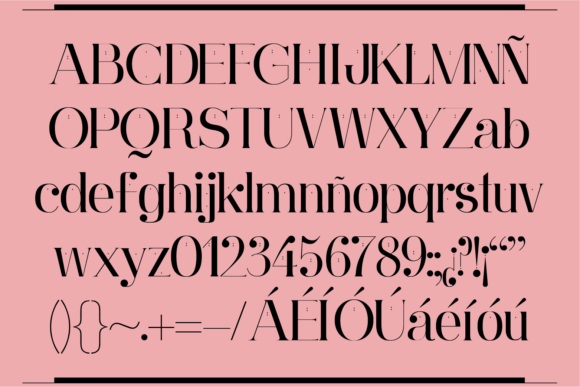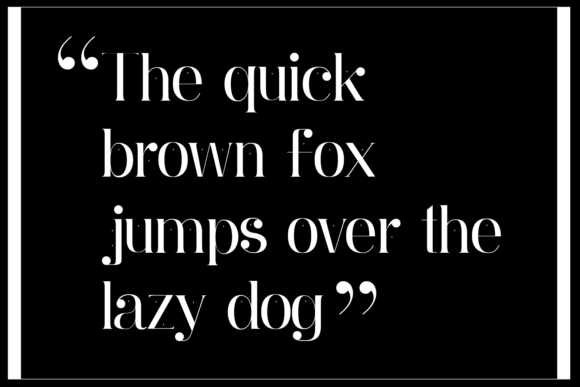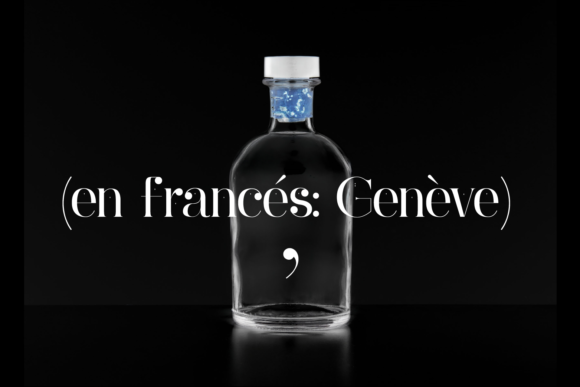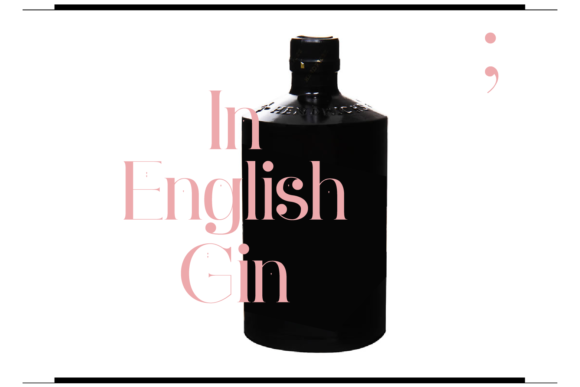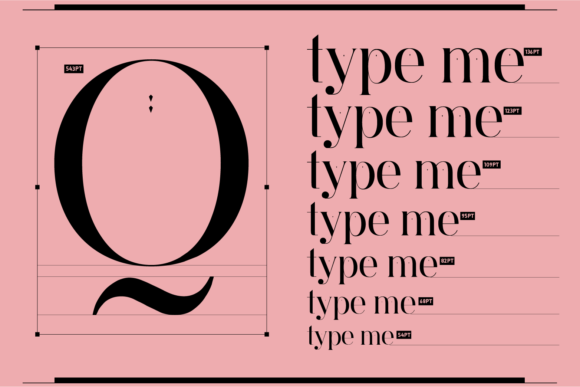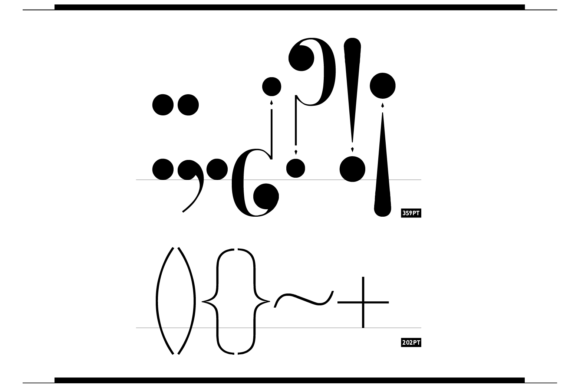
The Designer’s Delight: Getting to Know Ginebra Font
I still remember the frustration of working on a design project, hours spent scrolling through font libraries, and yet, none seemed quite right. The client wanted something unique, fun, and editorial, but not too quirky. That’s when I stumbled upon Ginebra Font, and it was love at first sight! 💕 With its distinctive serif style and playful vibe, Ginebra quickly became my go-to for adding a touch of personality to my designs.
What I Love About Ginebra Font
- ✨ Unique and eye-catching serif design
- ✅ Editorial feel that’s perfect for creative projects
- 🔥 Highly versatile, works well for both digital and print designs
- 📚 Extensive character set, including OpenType features and stylistic alternates
While Ginebra Font is incredibly versatile, there are a few things to keep in mind. 🤔 For instance, some of the more intricate OpenType features might not display properly in older software or browsers. ⚠️ Additionally, the font’s distinctive style might not be the best fit for very formal or traditional designs.
The Story Behind Ginebra Font
Ginebra Font was designed with the goal of creating a unique, editorial serif font that would add a touch of personality to any design. Inspired by the world of publishing and magazine design, Ginebra’s creator aimed to craft a font that would be both fun and sophisticated, with a distinctive style that would stand out in any design.
| Font Name | Ginebra Font |
| Author | yai.salinas |
| What makes Ginebra Font unique? | Ginebra’s distinctive serif design and extensive character set, including OpenType features and stylistic alternates, make it a standout in the world of typography. |
| Is Ginebra Font suitable for body text? | While Ginebra is primarily designed for display and headline use, its clear and legible design makes it suitable for body text in certain contexts, such as editorials or creative writing projects. |
| Does Ginebra Font support non-English languages? | Yes, Ginebra Font includes support for multiple languages, including Western European and Cyrillic scripts. |